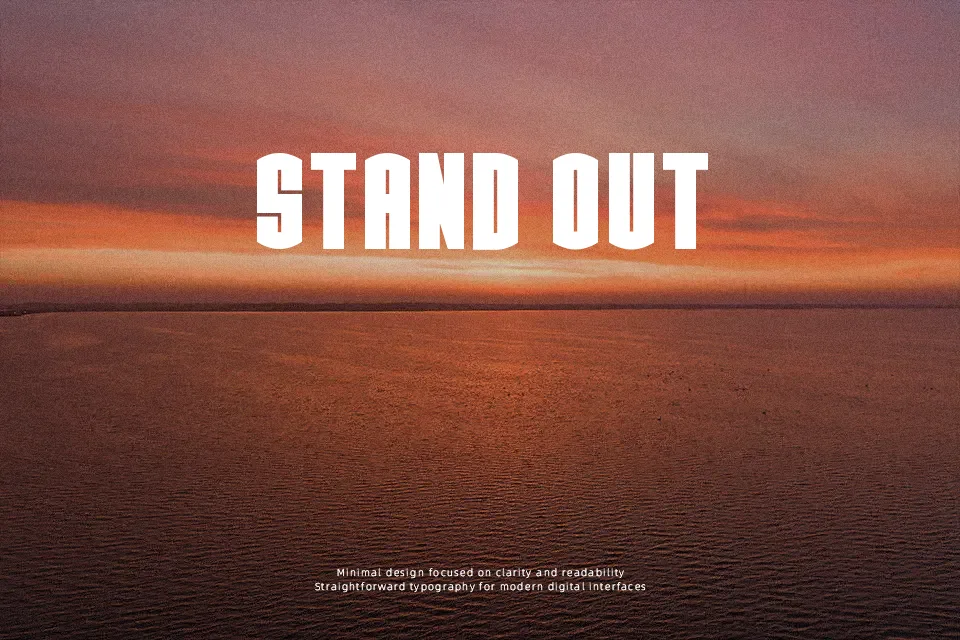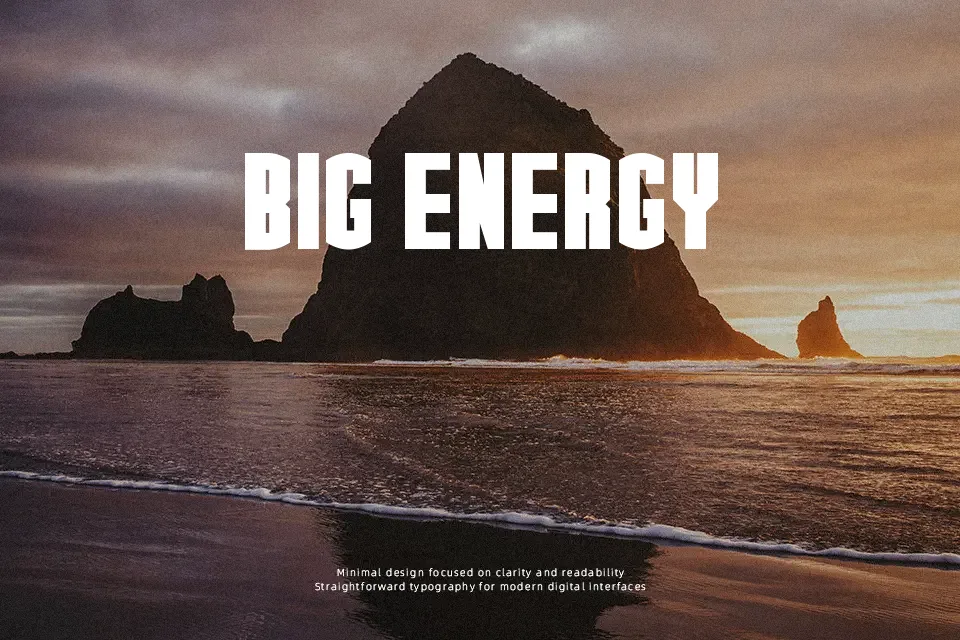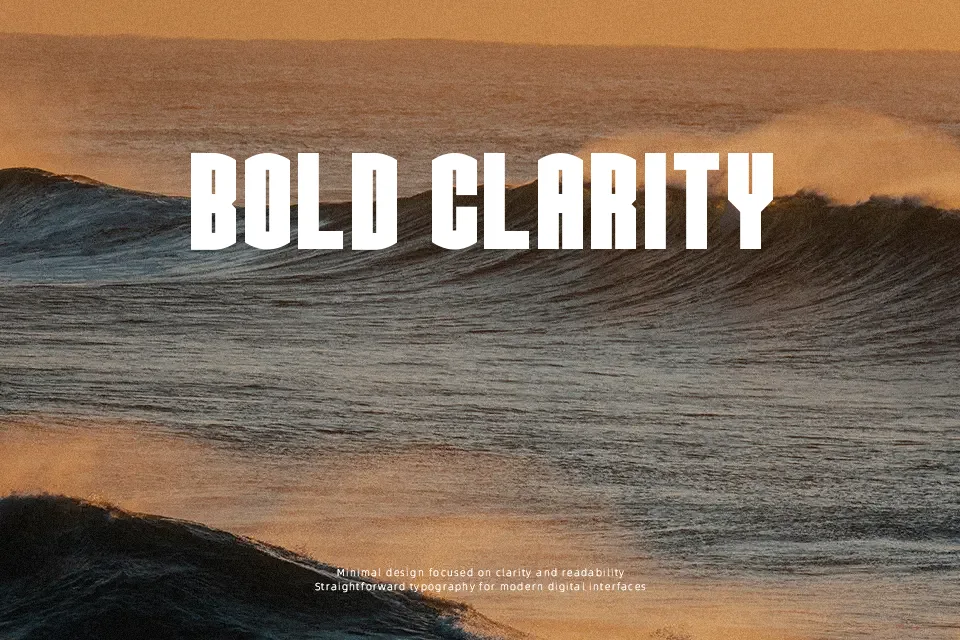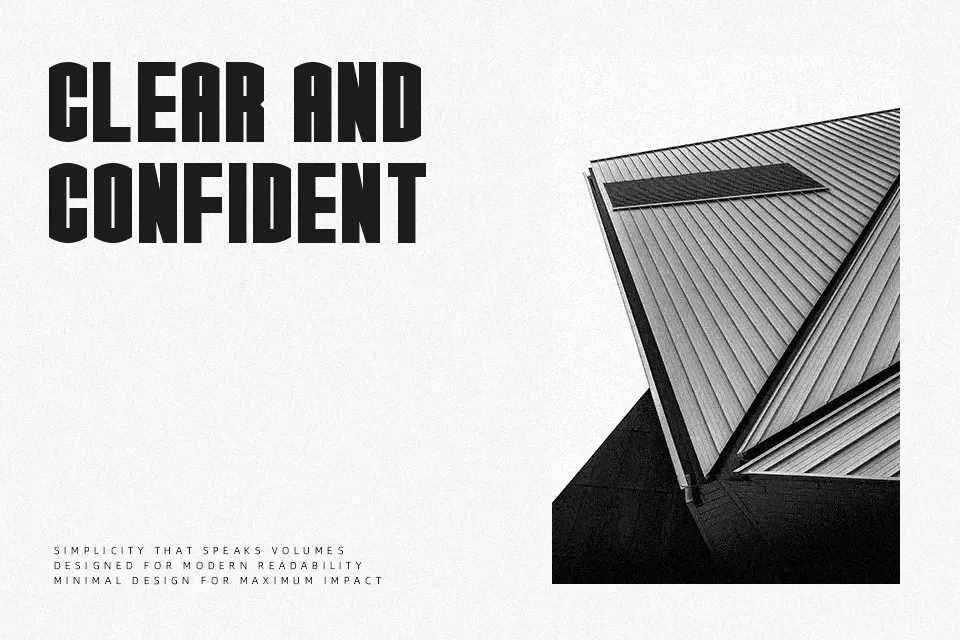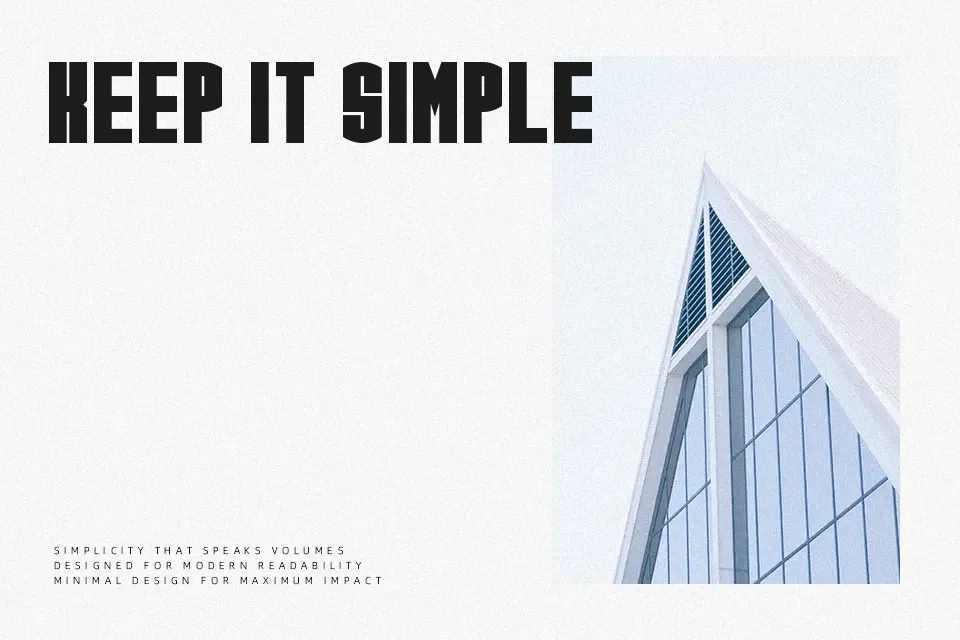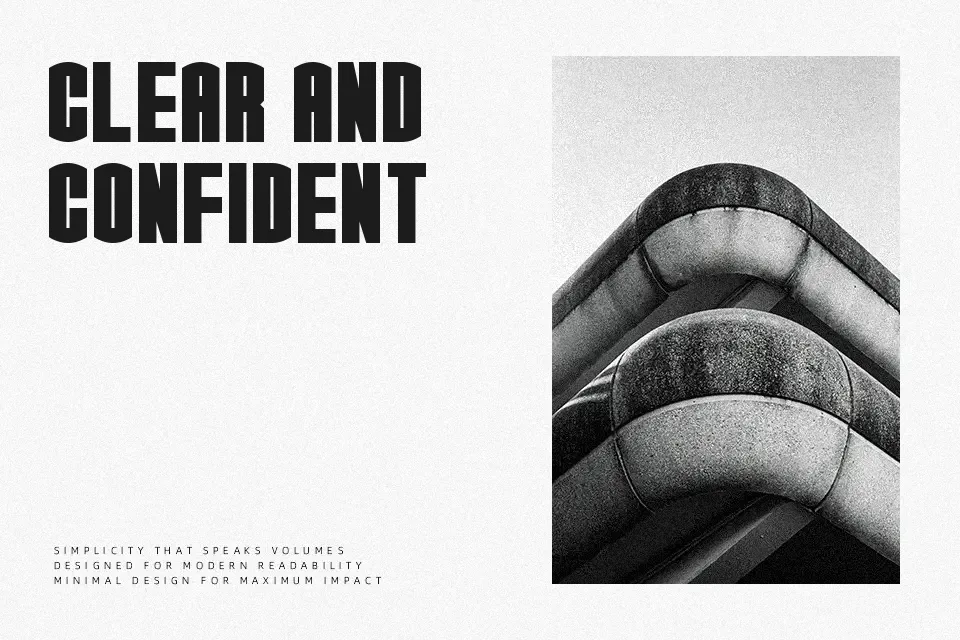
CGF Arch Reactor Font
CGF Arch Reactor Font showcases ultra-bold strokes, blocky proportions, and sharp geometric chamfers that establish an imposing technological tone. The letterforms maintain uniform stroke thickness and tight character spacing, generating a dense visual rhythm suited for impactful presentations. In large display settings, the compact silhouettes remain instantly recognizable, making the typeface highly effective for video game titles, futuristic poster art, and action merchandise graphics. However, the heavy weight and enclosed counter spaces significantly reduce legibility at smaller scales. Dense blocks of body copy quickly become indistinguishable, making the design unsuitable for extended reading layouts.
Best For: esports team logos, sci-fi movie posters, gaming video thumbnails, action apparel graphics
Not Ideal For: continuous body text, mobile app UI labels, legal contract documents, dense book paragraphs
Perfect for film, gaming, and headline, with a bold and display style.